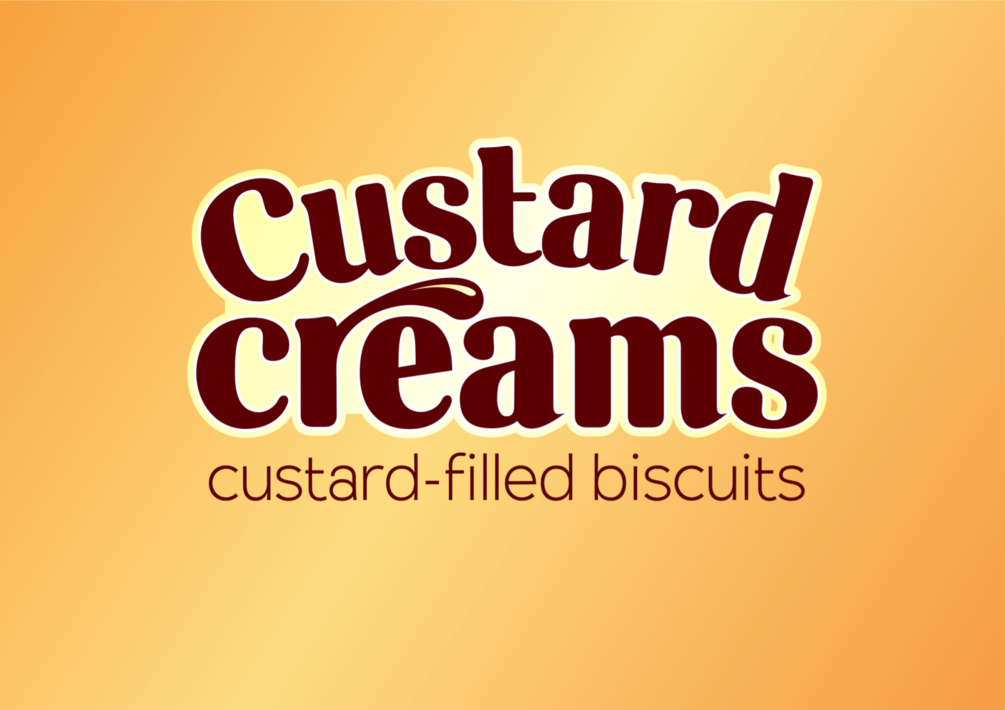
Creamy Serif display typeface
A deliciously creamy serif typeface prepared with love to help you create the smoothest looking food packaging ever.
A deliciously creamy serif typeface prepared with home-cooked love to help you create the smoothest looking food brand packaging ever.
Pair it with our AnBe Sans typeface to help emphasise the character in this full-bodied typeface.
Font family: Creamy Serif